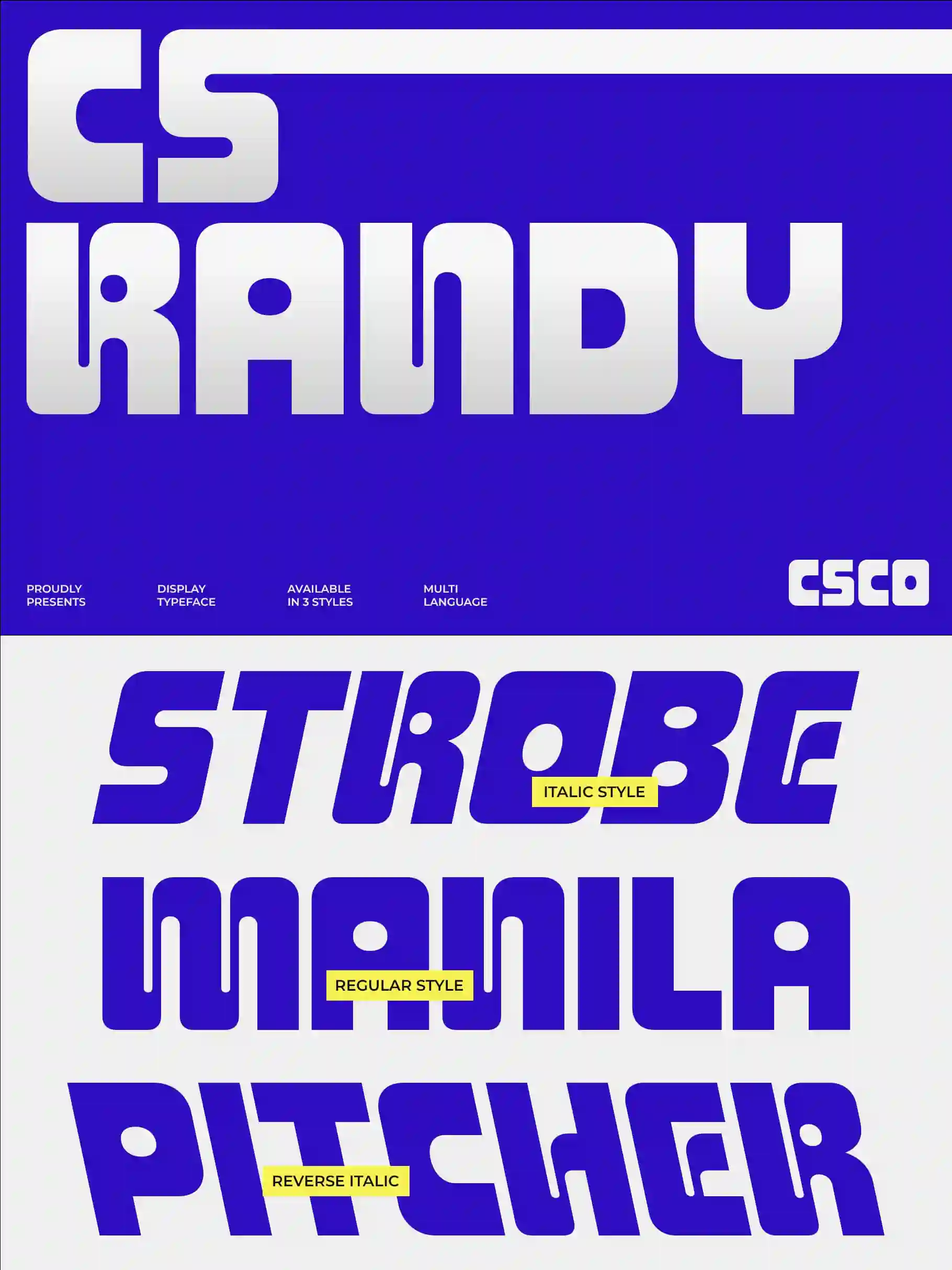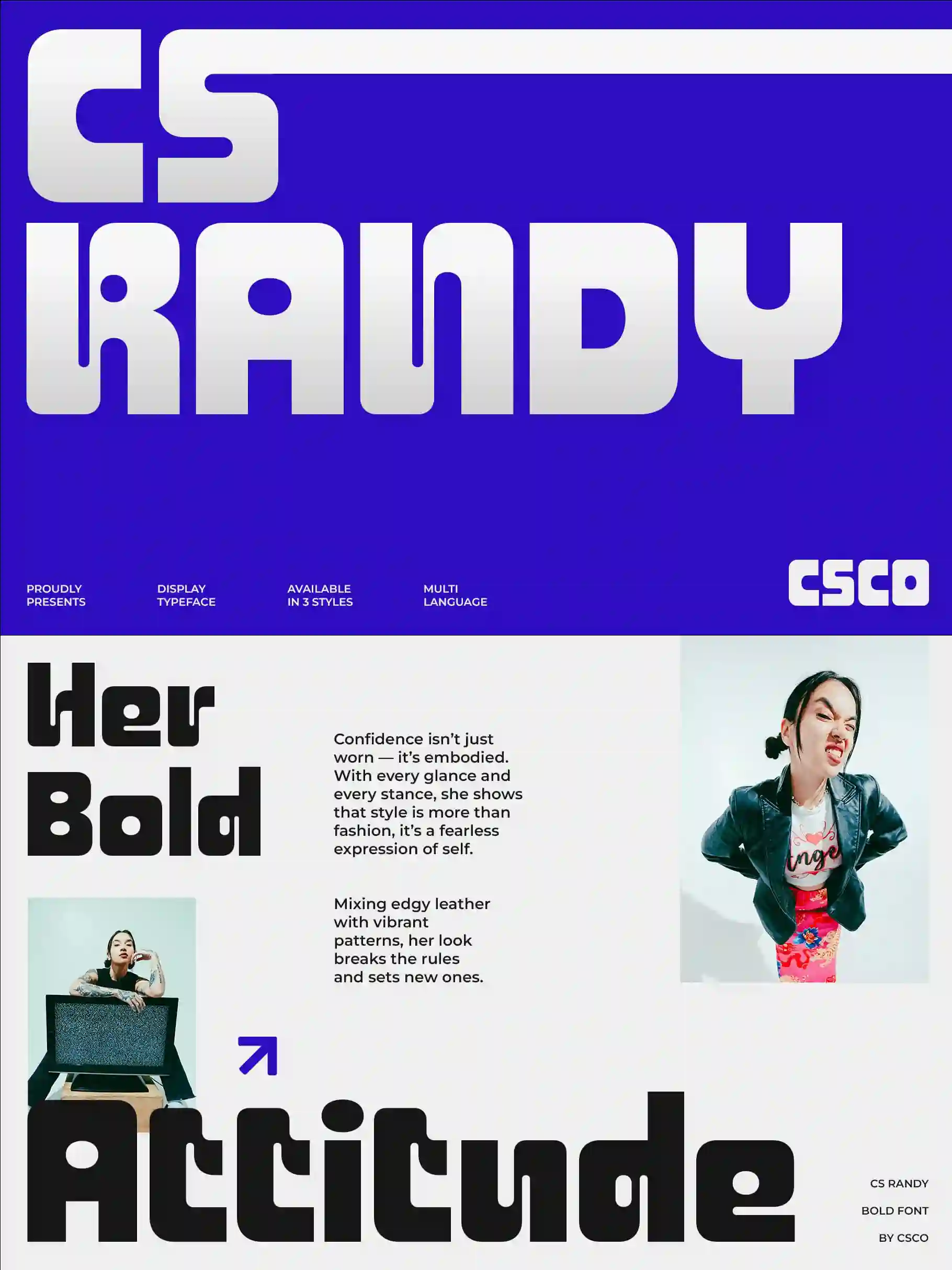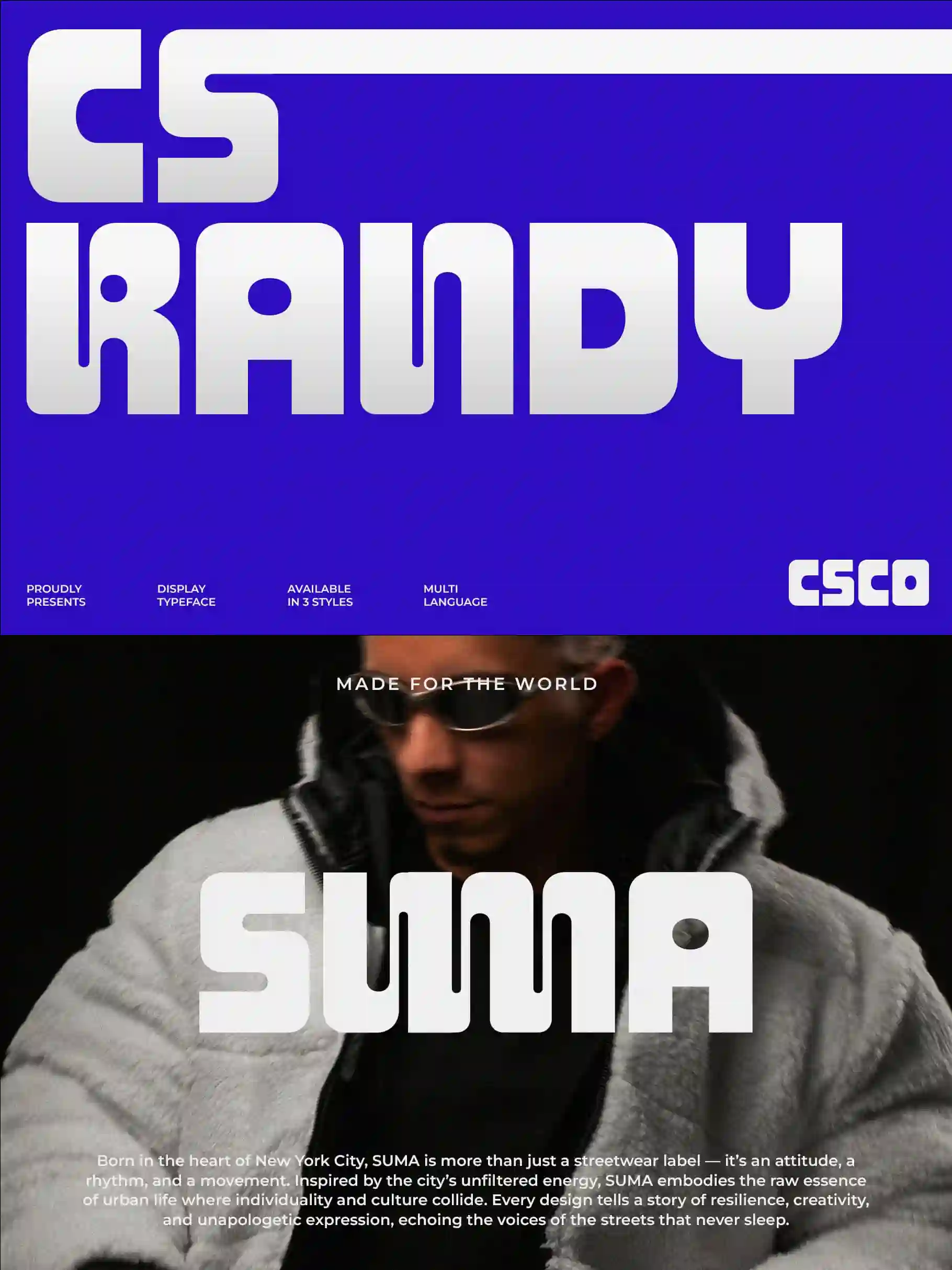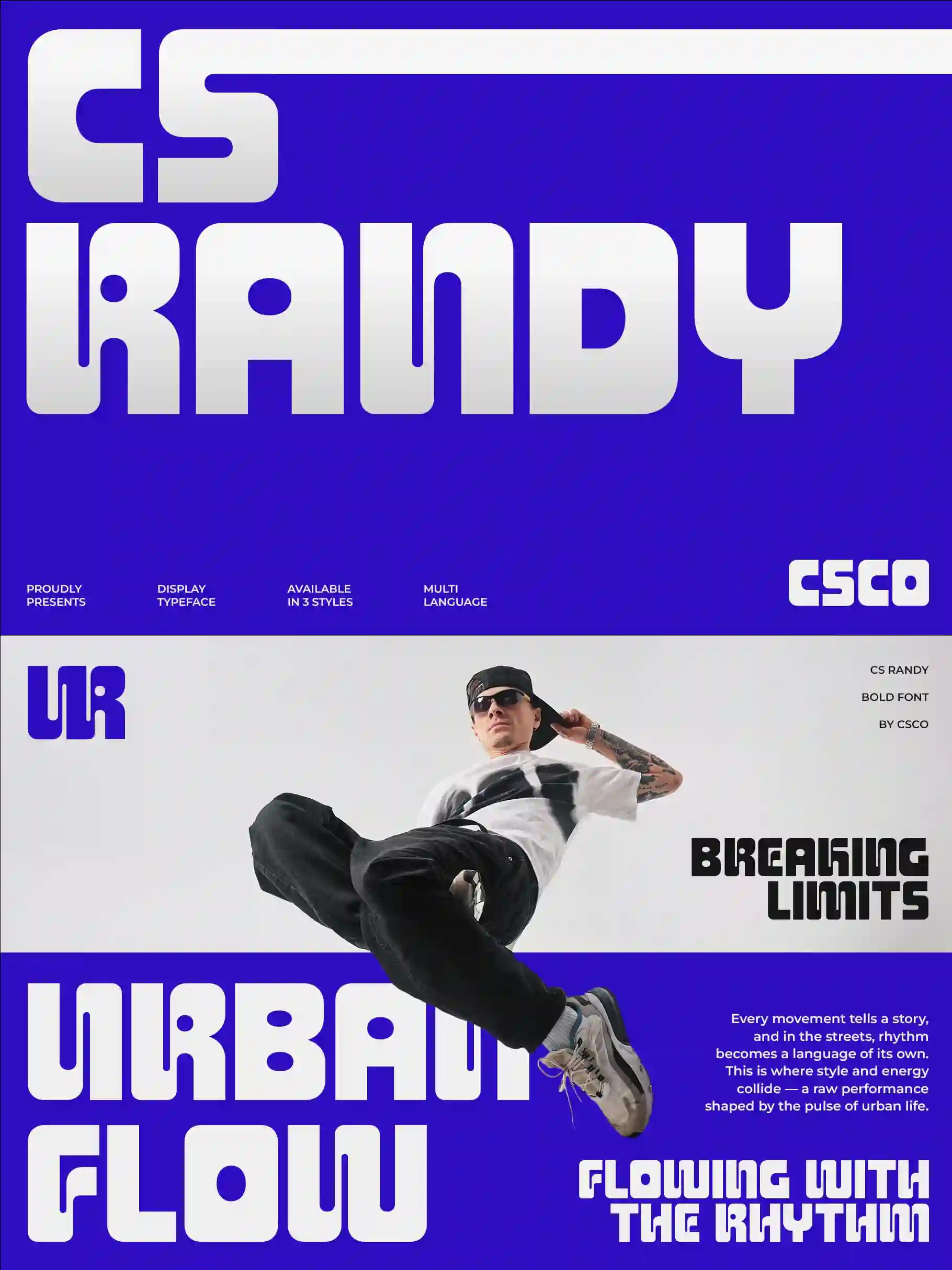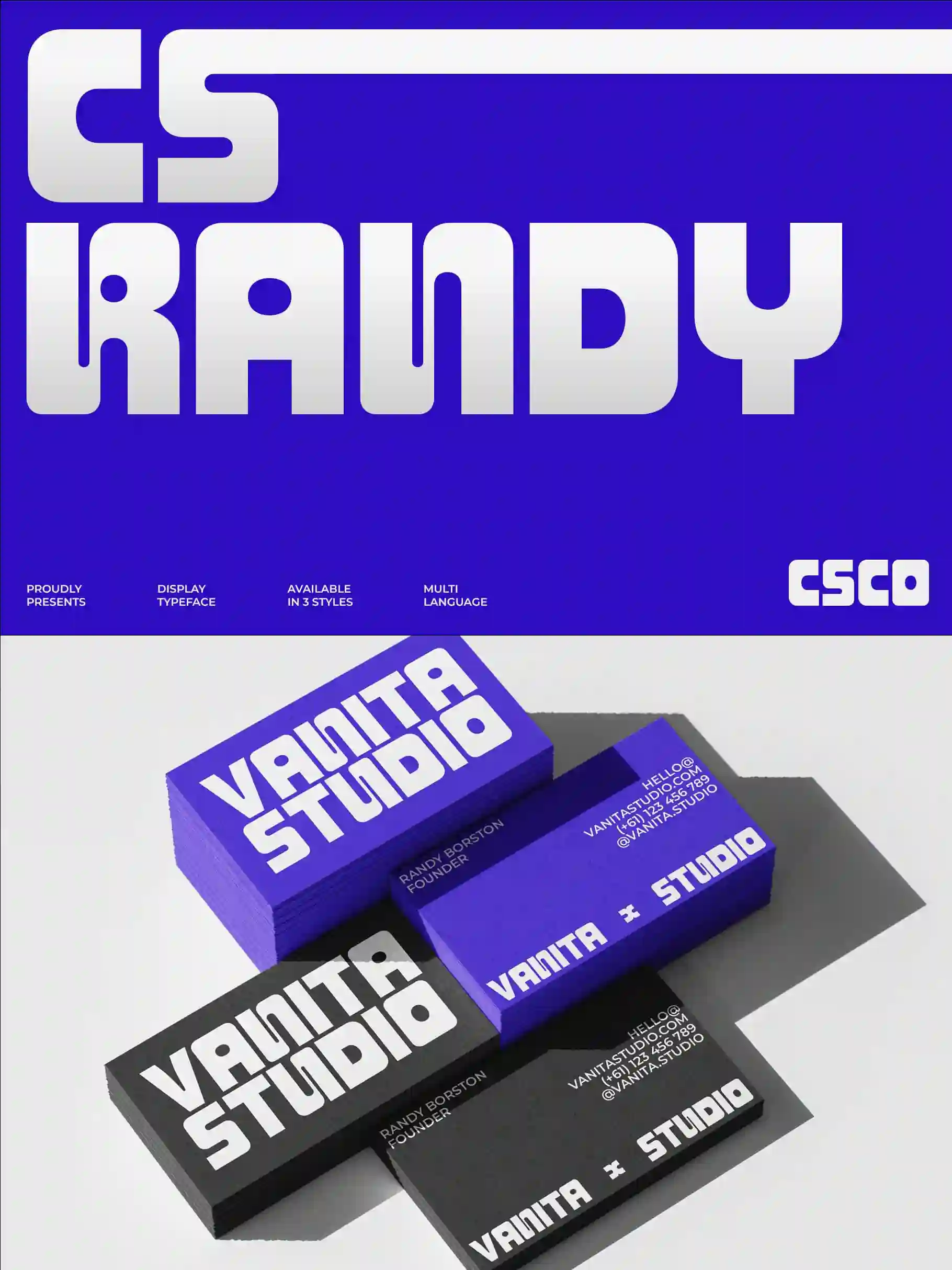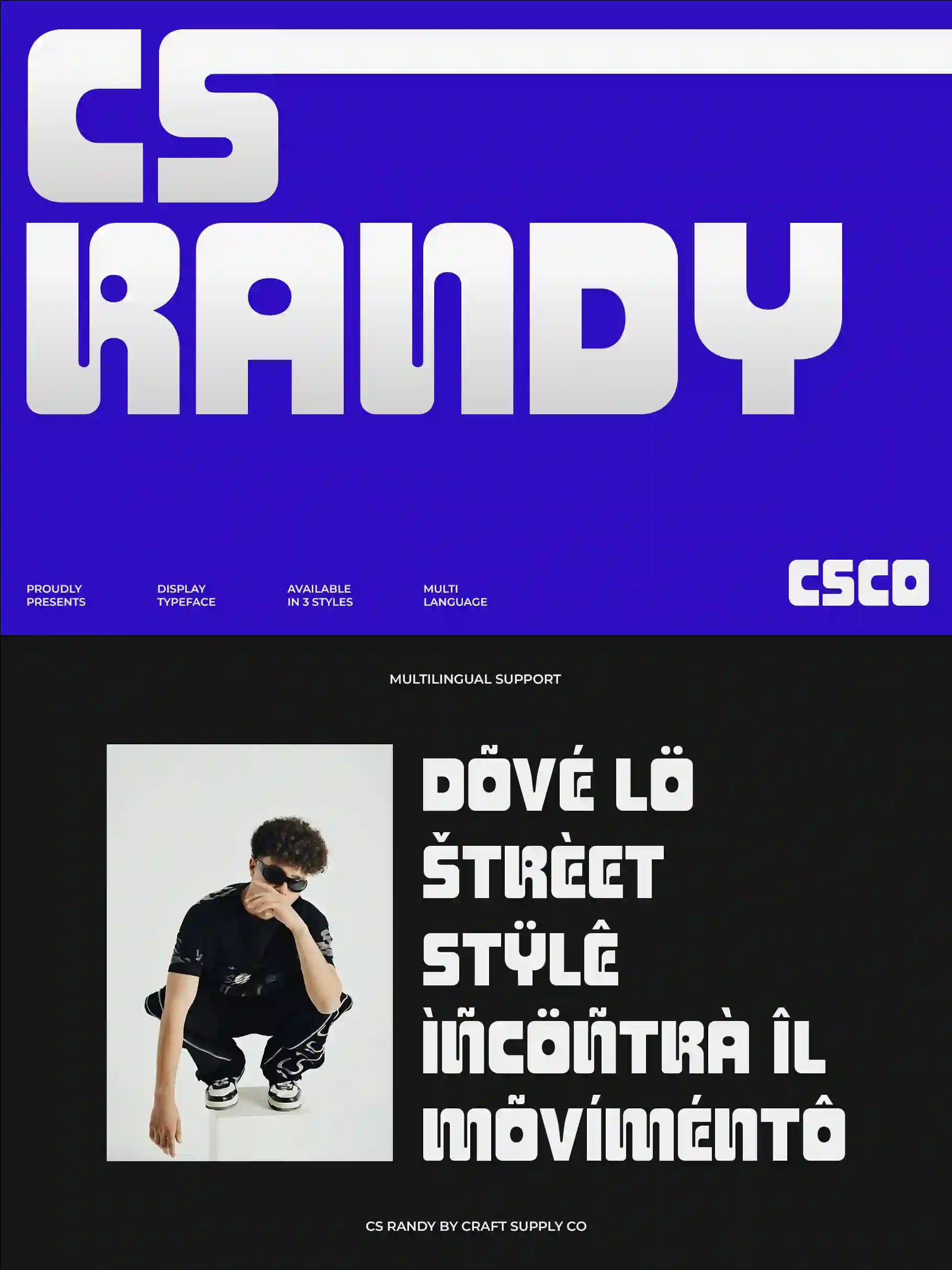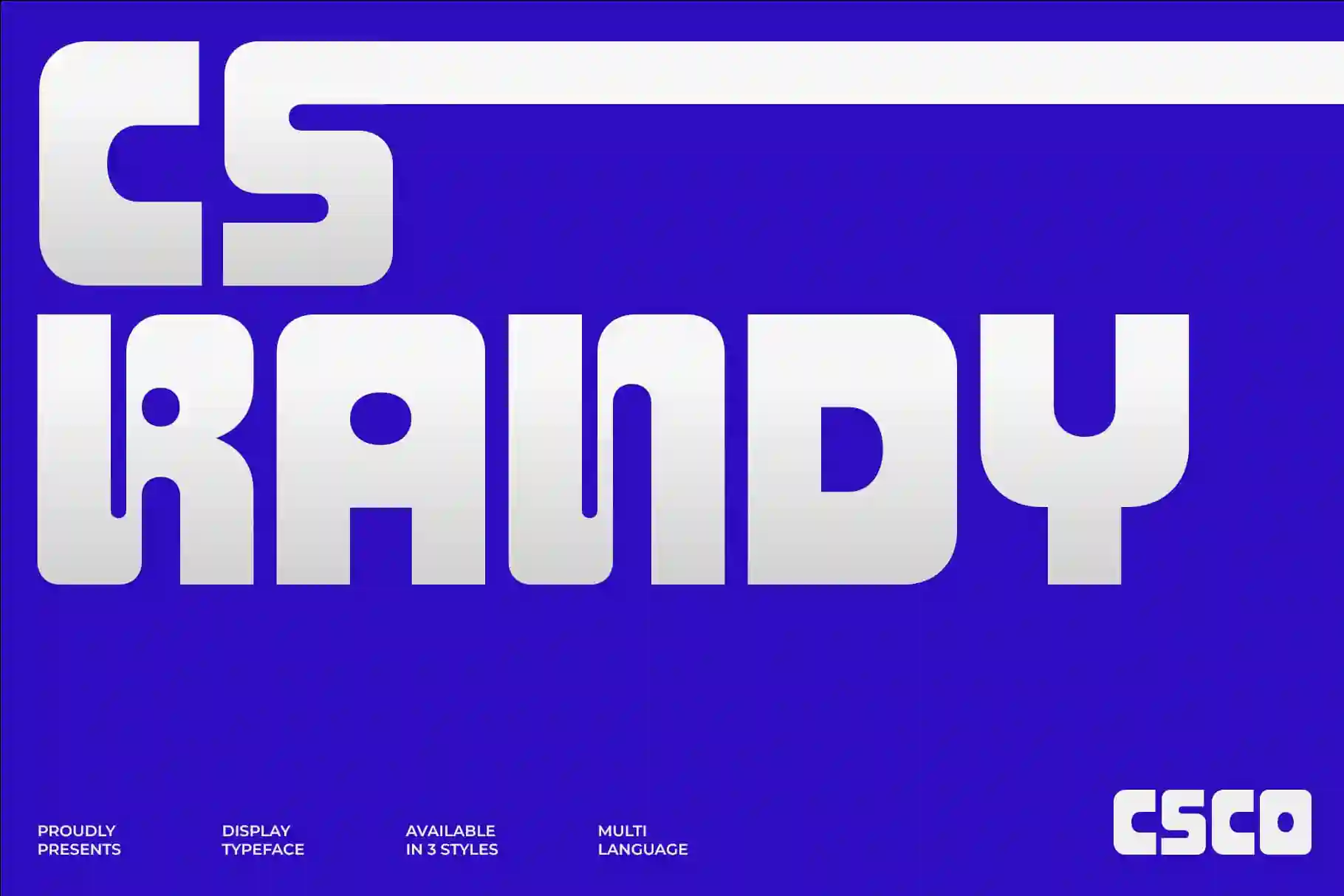
CS Randy – Bold Display Font with Futuristic Techno Style
Bold Display Font with Futuristic and Y2K Influence
Modern Design with Futuristic Energy
CS Randy is a bold display font crafted with clean lines and strong geometric structure. Its modern design is infused with futuristic and Y2K aesthetics, giving it a distinctive edge that feels both nostalgic and forward-looking. Built for impact, it ensures your text stands out in any creative project.
Techno Structure for Bold Statements
Defined by its techno-inspired framework, CS Randy thrives in designs that demand clarity and power. The precise construction of each character adds rhythm and balance, while the futuristic styling projects innovation and creativity. This makes it a go-to choice for designers exploring themes of technology and digital culture.